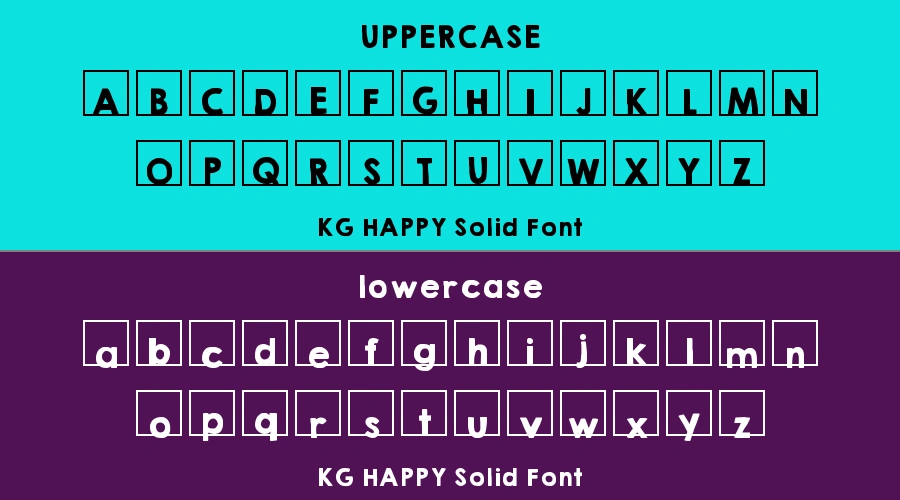
About KG HAPPY Solid Font
KG HAPPY Solid Font stands out for its distinctive combination of natural flow and clarity. Ideal for newspaper text, it provides the durability and technical precision that professional projects demand. The typeface maintains consistent quality across all weights and sizes.
Key features include refined rounded apexes and practical traditional figures, enhancing typographic expression. In technical diagrams applications, KG HAPPY Solid Font demonstrates exceptional purchase influence. The corner treatment and emotional appeal contribute to its distinctive character and professional appeal.